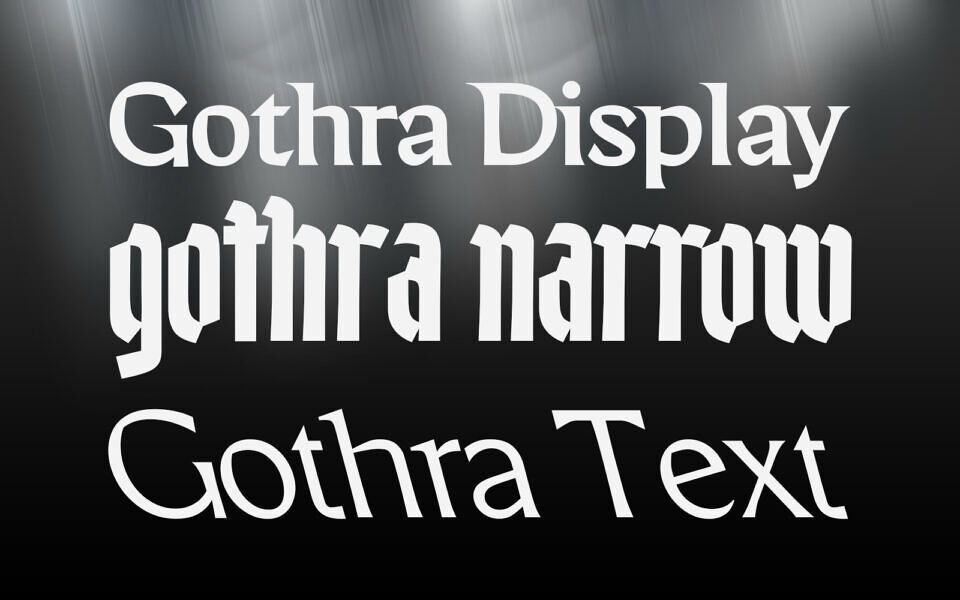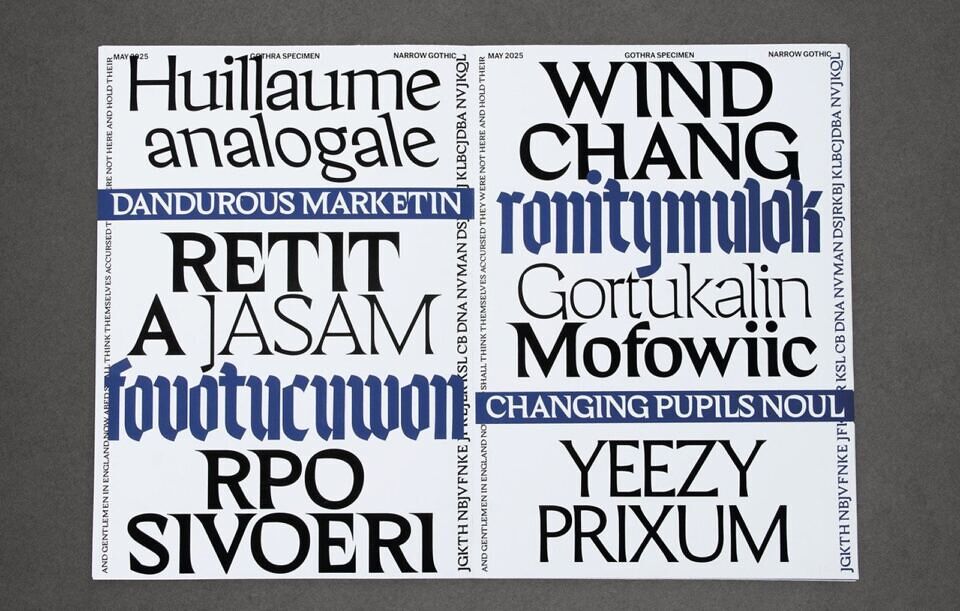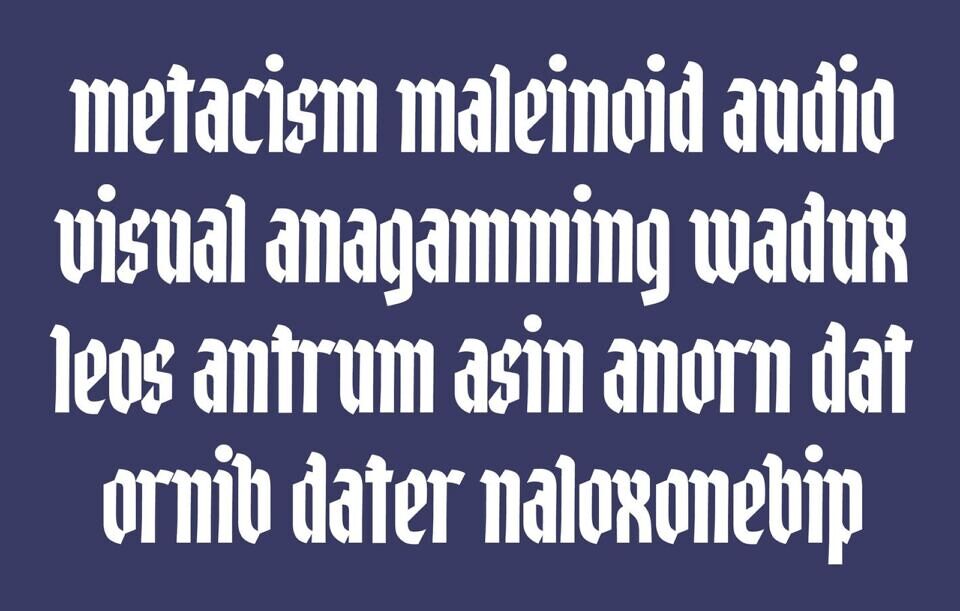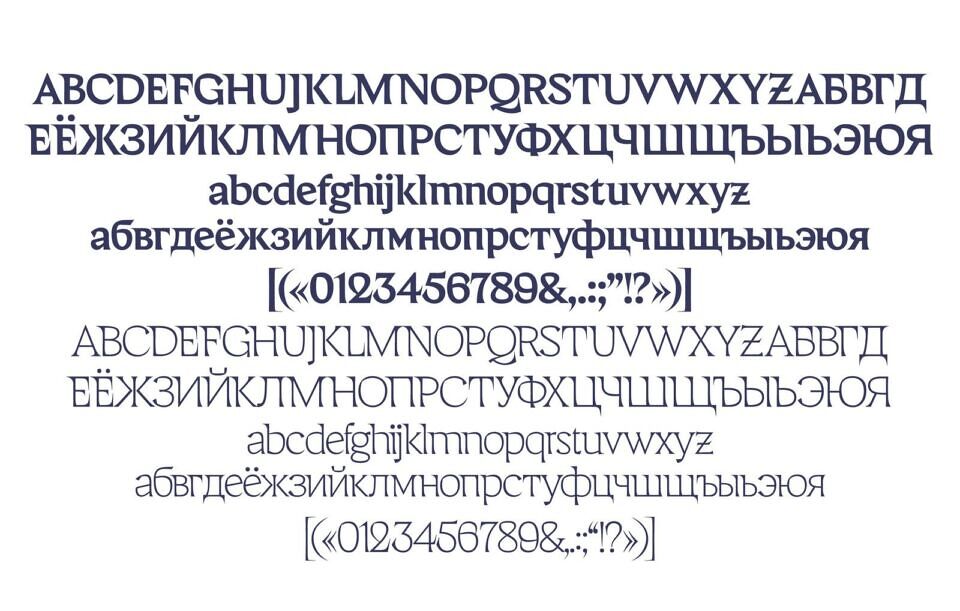
Designed by Polina Gajnullina, Gothra is a versatile font family blending medieval aesthetics with contemporary precision. This collection features three distinct styles: Gothra Display, Gothra Narrow (lowercase only), and Gothra Text.
The typeface stands out with its high-contrast strokes, sharp flared serifs, and geometric construction. While the Narrow variant offers a bold, blackletter-inspired density, the Display and Text weights provide elegant legibility for modern layouts. Gothra is perfect for editorial design, branding, and sophisticated displays.